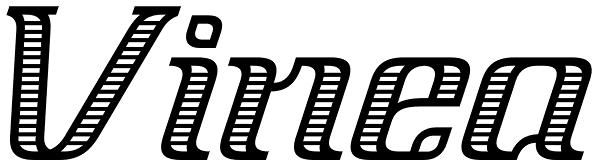
Vinea
Vinea is a family of ten display faces that take us on an enjoyable excursion into the world of the retro-futuristic. Ideal for posters, book covers, and anything that needs the sort of futuristic feel that abounded in designs from the 30s to the...